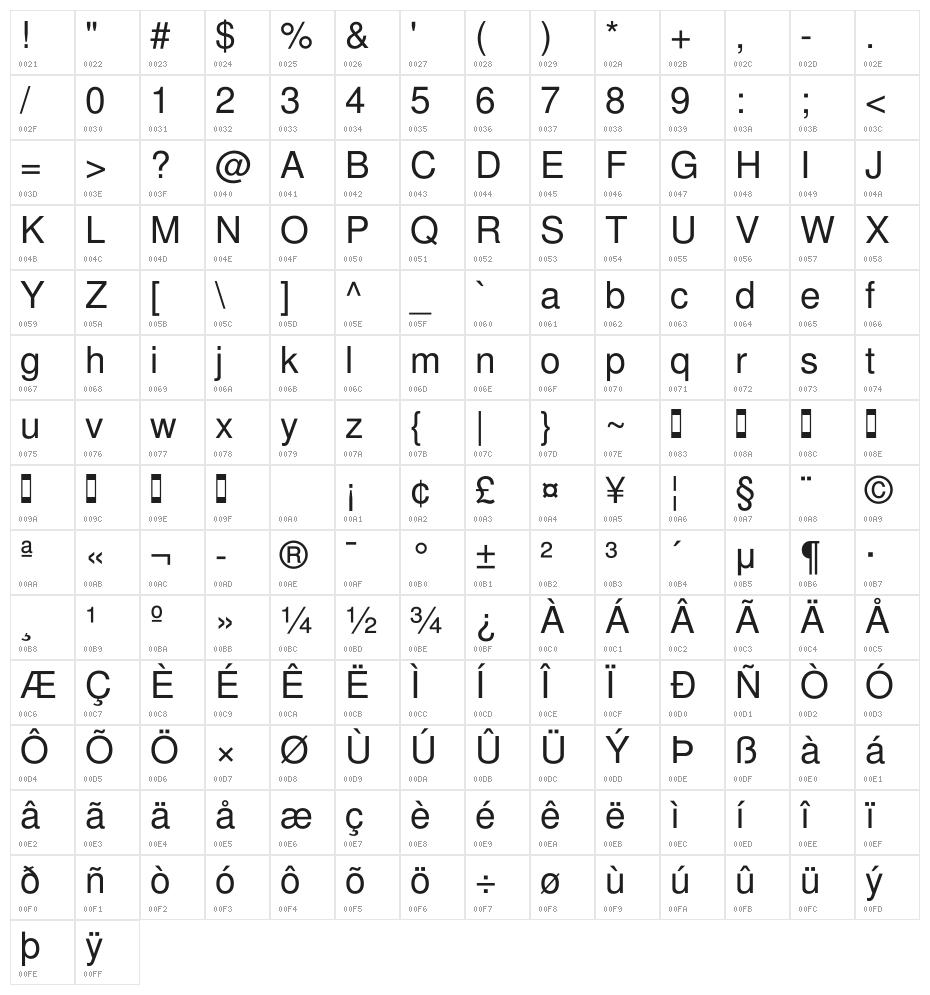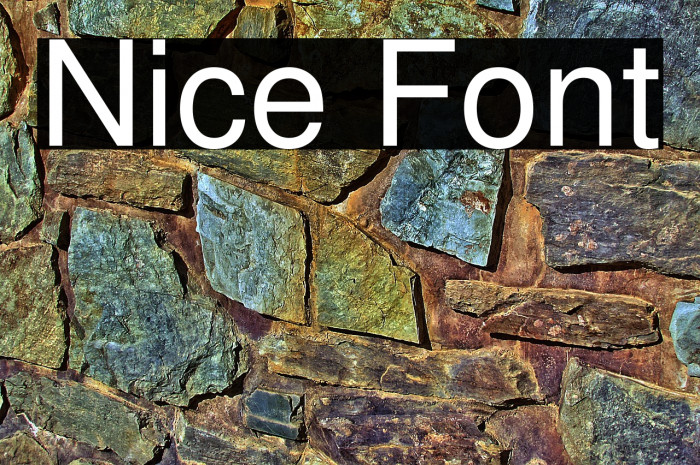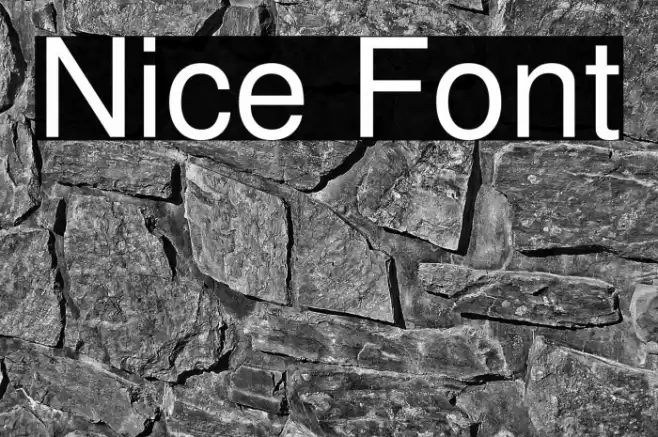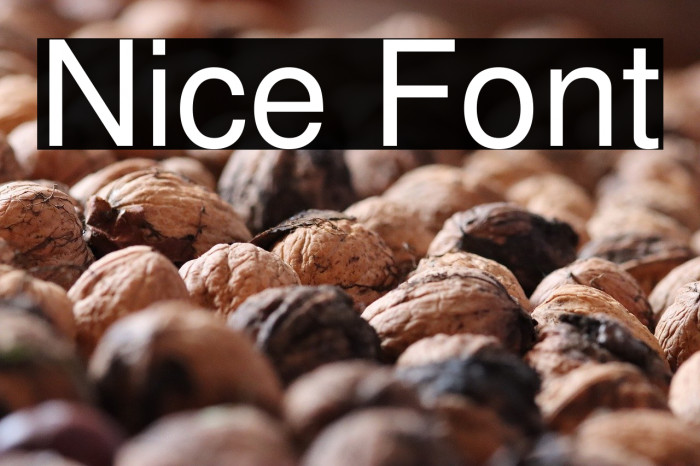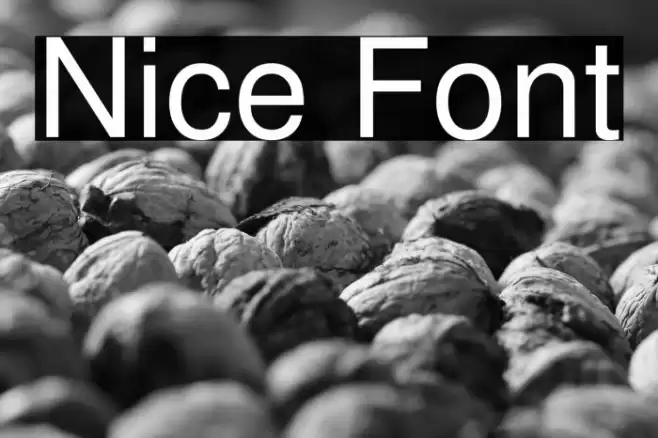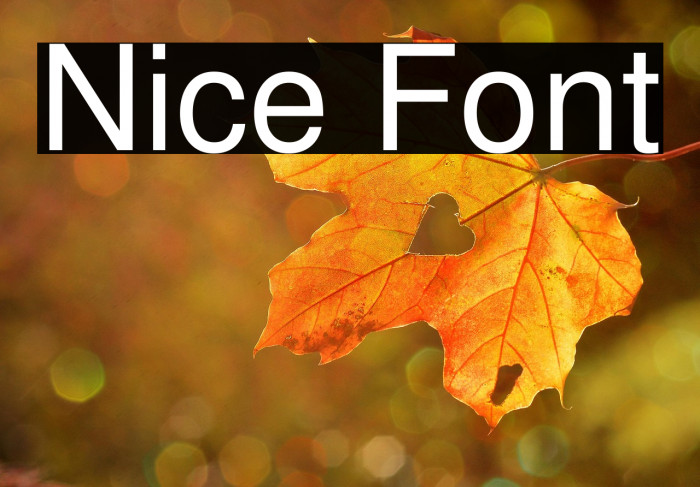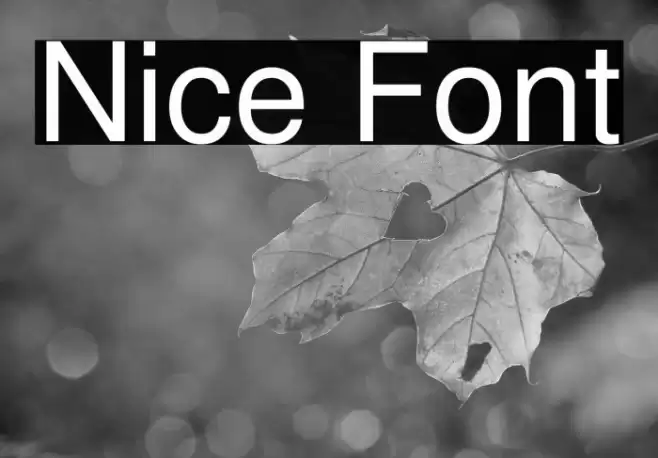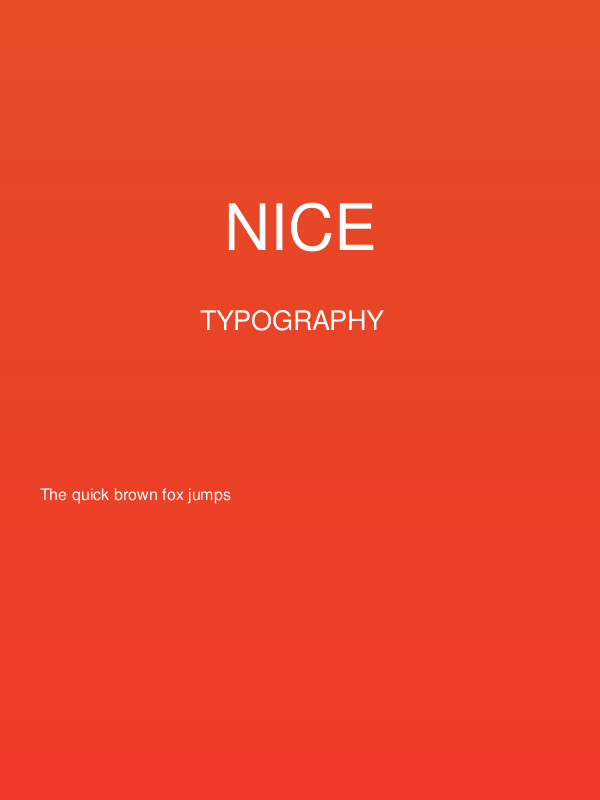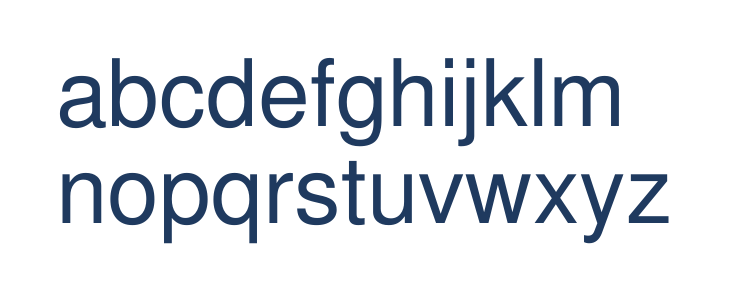
Nice Font
Nice Description
This font is a clean and modern sans-serif typeface characterized by its simplicity and readability. The letters are evenly spaced with a consistent stroke width, giving it a balanced and harmonious appearance. The uppercase and lowercase letters are well-proportioned, making it suitable for a wide range of applications. The numerals are clear and distinct, ensuring legibility in both print and digital formats. Special characters are included, maintaining the font's cohesive design. Its straightforward style makes it versatile for various design needs.